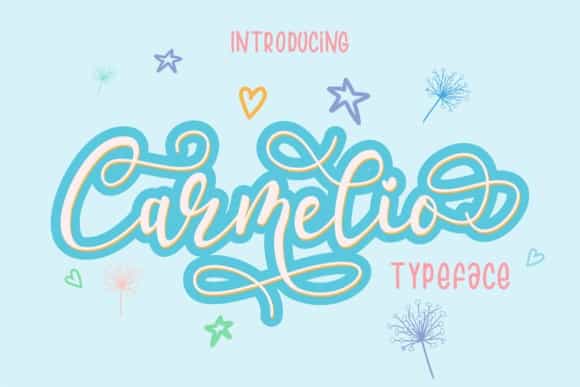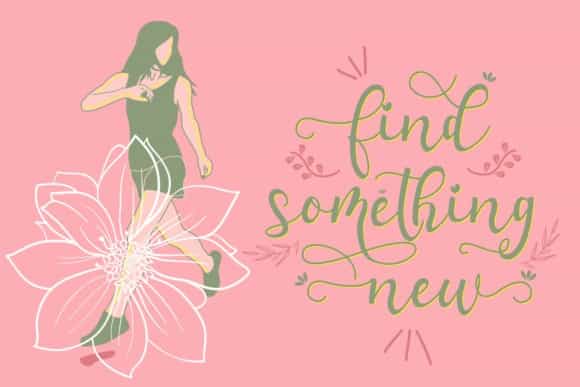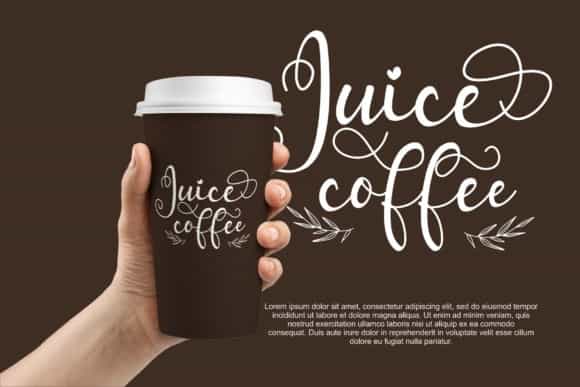
Carmelio is a script font that is in bold and it was inspired by hand lettering stylistic with modern calligraphy. Carmelio has a lot of alternatives to choose from in the pack. Carmelio is not really the best font for creative projects like logo, T-shirt / apparel, badge, invitation, packaging, headline,, poster and magazine.